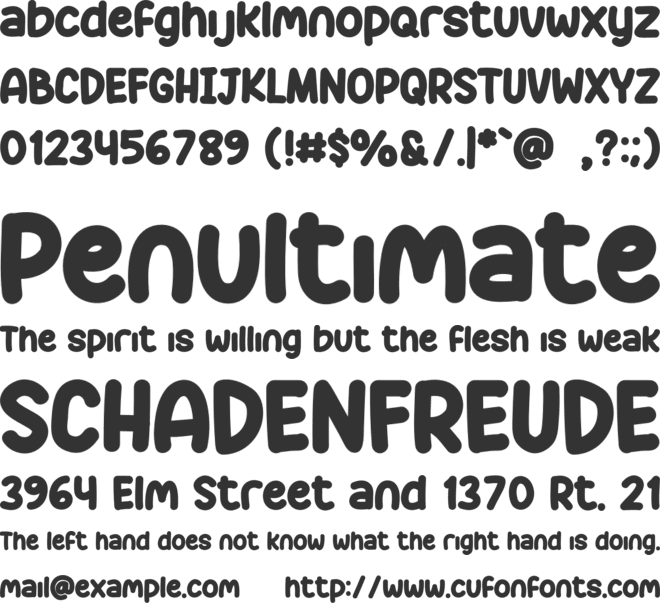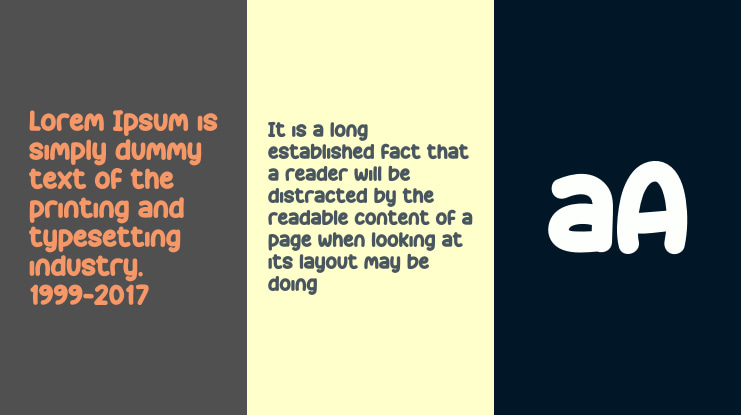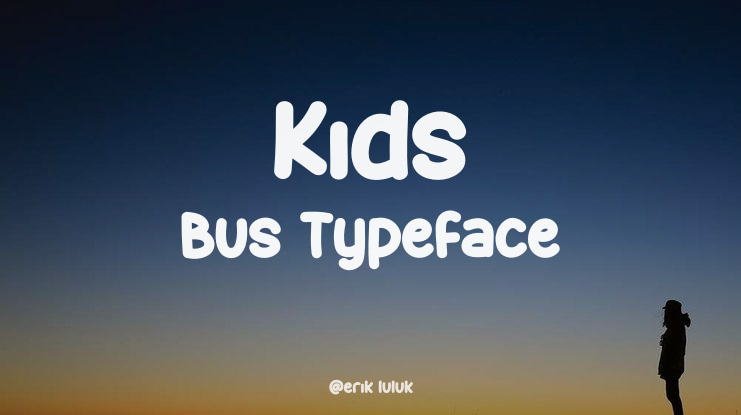
Kids Bus Font
Kids Bus is a lovely display font featuring charming, playful characters that seem to dance along the baseline. Add this font to your most creative ideas, and notice how it makes them stand out!Attention :Kids Bus handwriting Font is prohibited to use this font for commercial purposes or for profit without the permission of the author/admin, without being known to use this font without permission, will be subject to sanctions 5x the specified price.This font is used only for demos (Demo license)If you want to use this font for commercial use please contact email:  click the link below:https://www.creativefabrica.com/product/kids-bus/ref/745146/If you want to see more other fonts, please click:https://www.creativefabrica.com/designer/erik-studio/ref/745146/thanks.